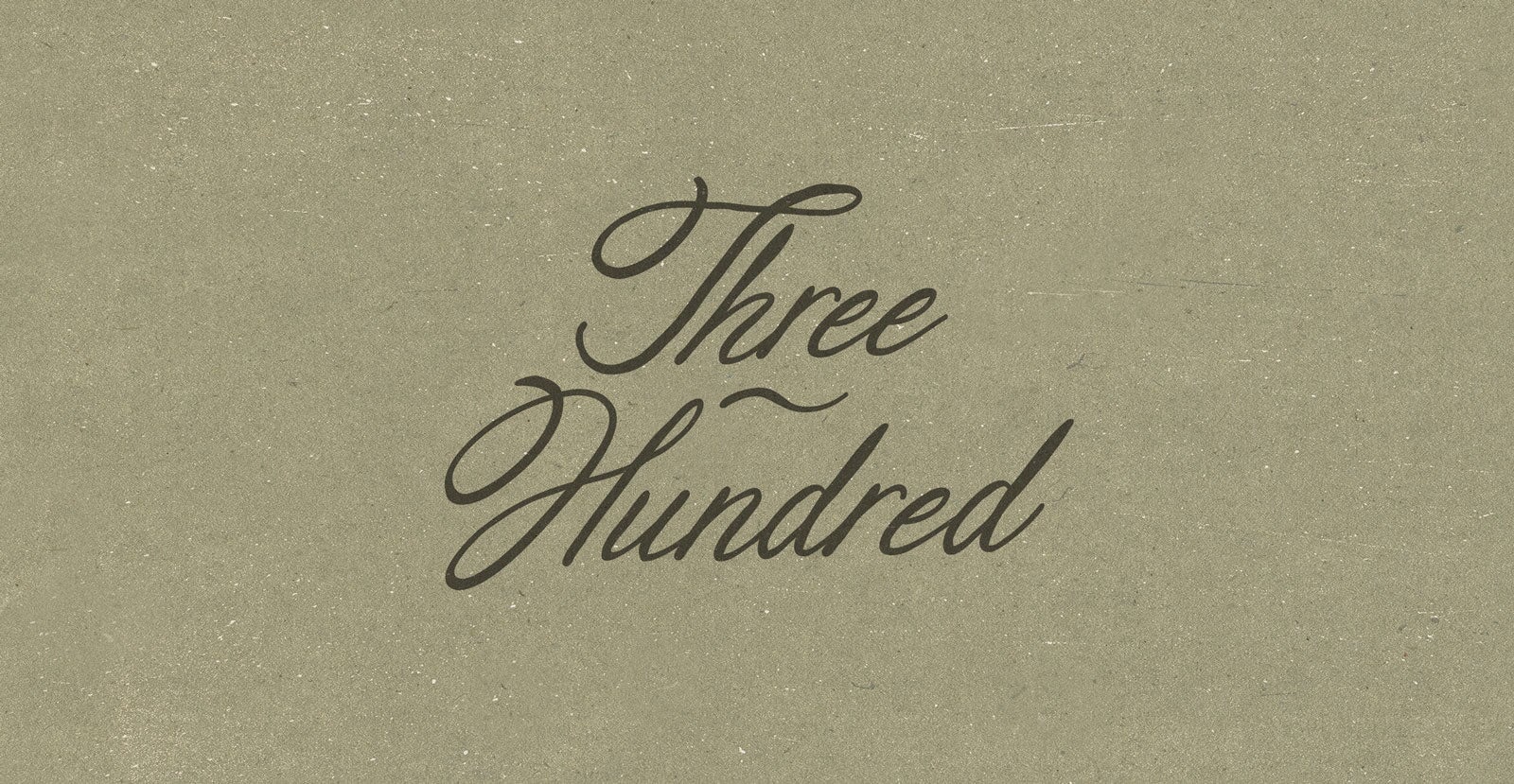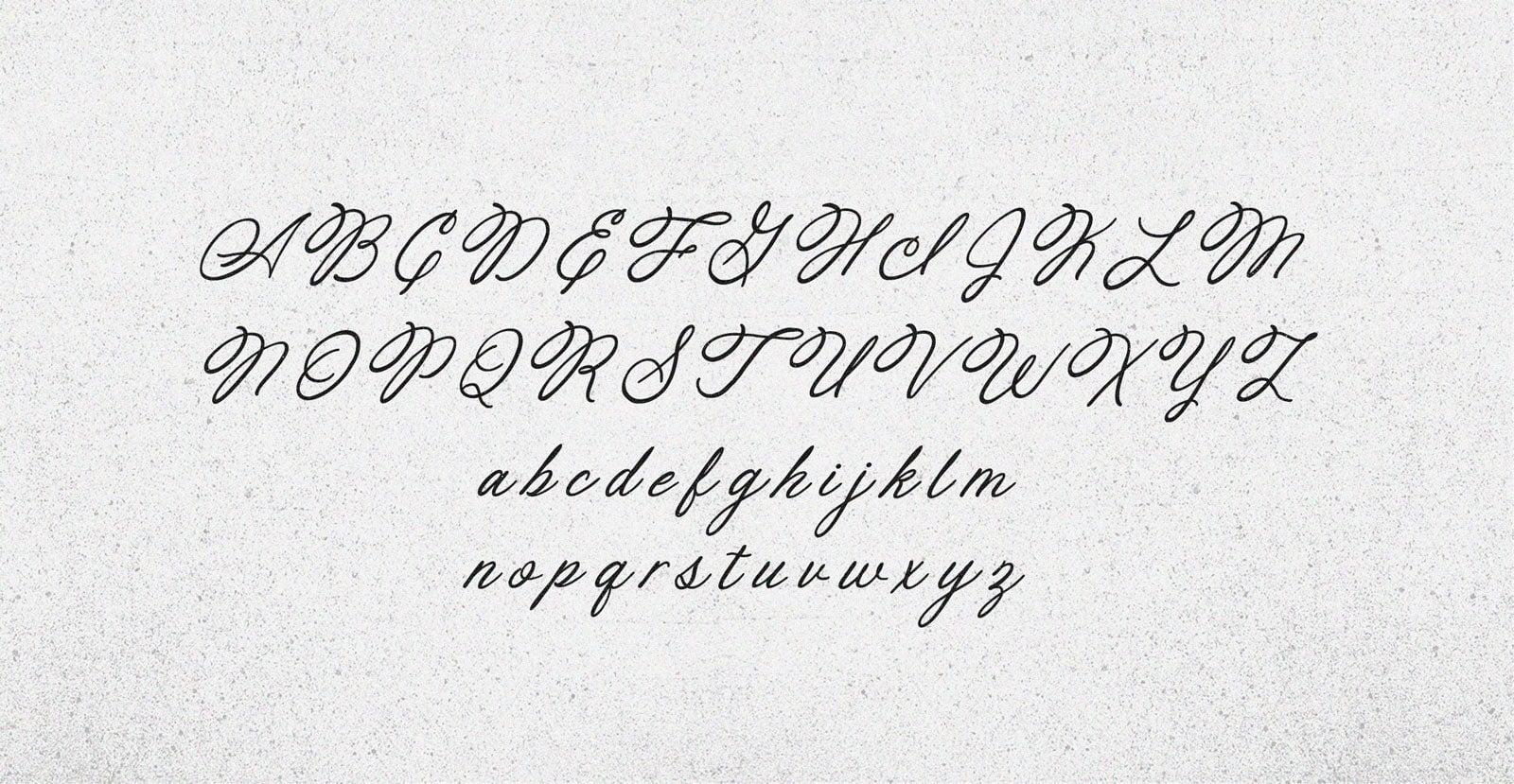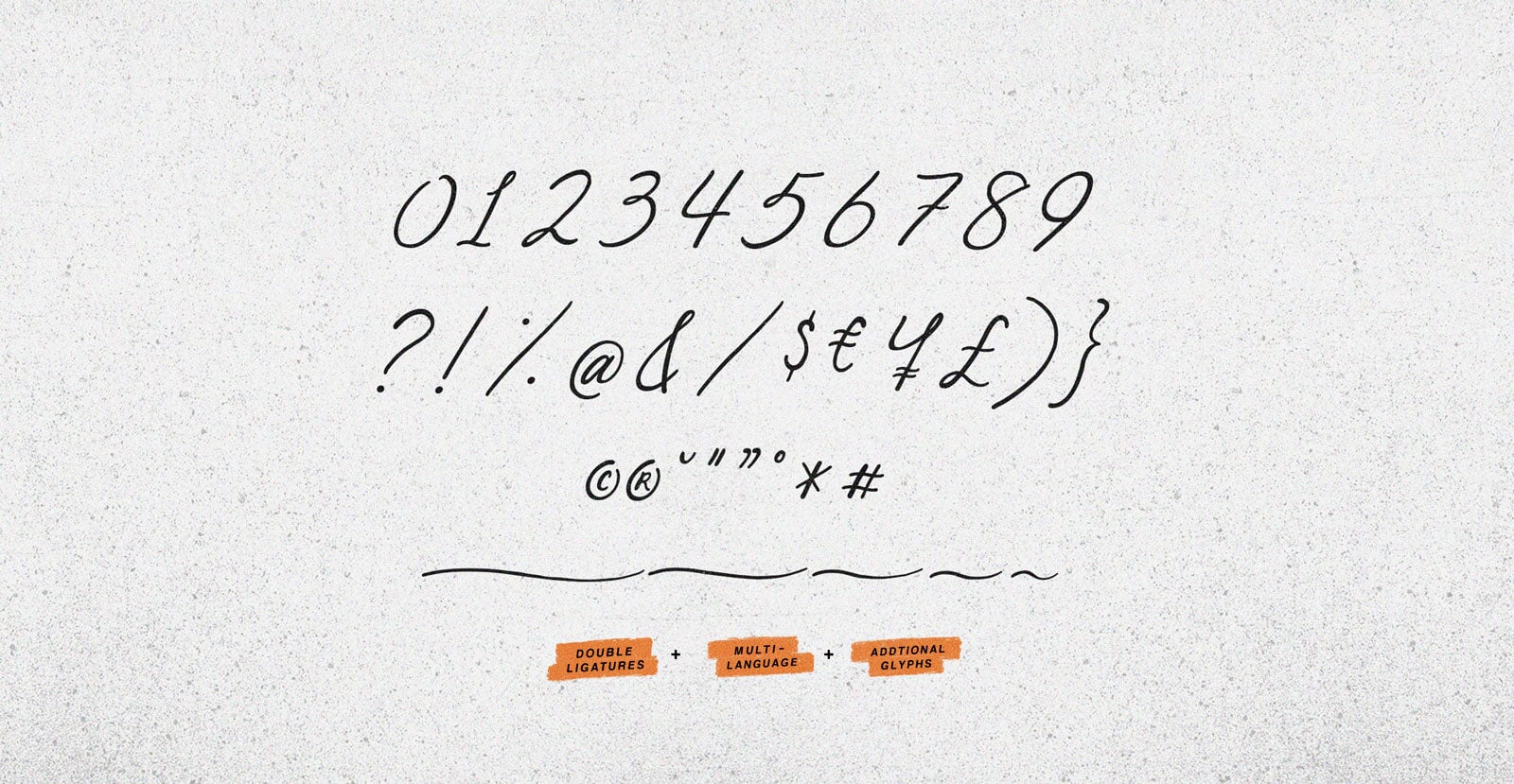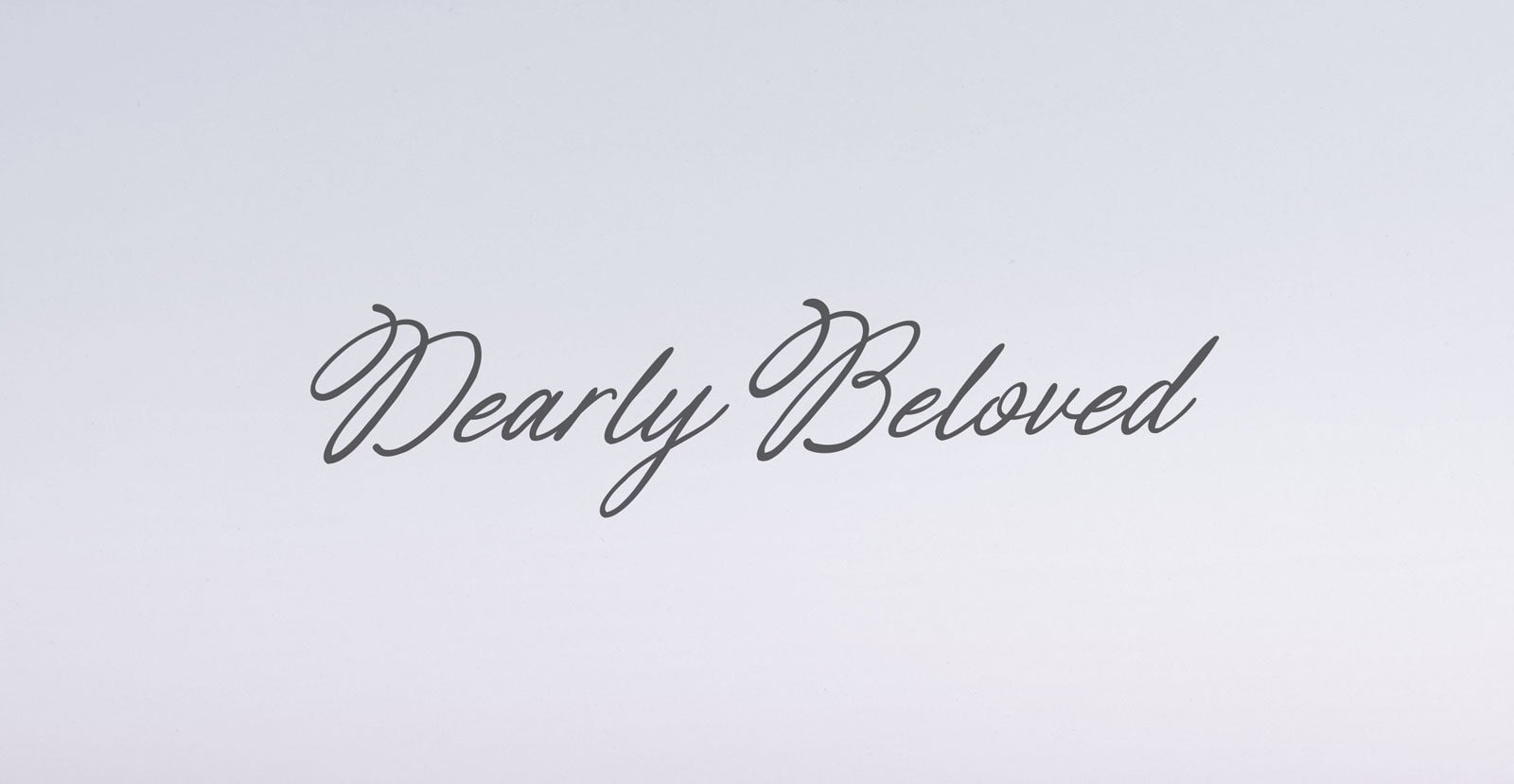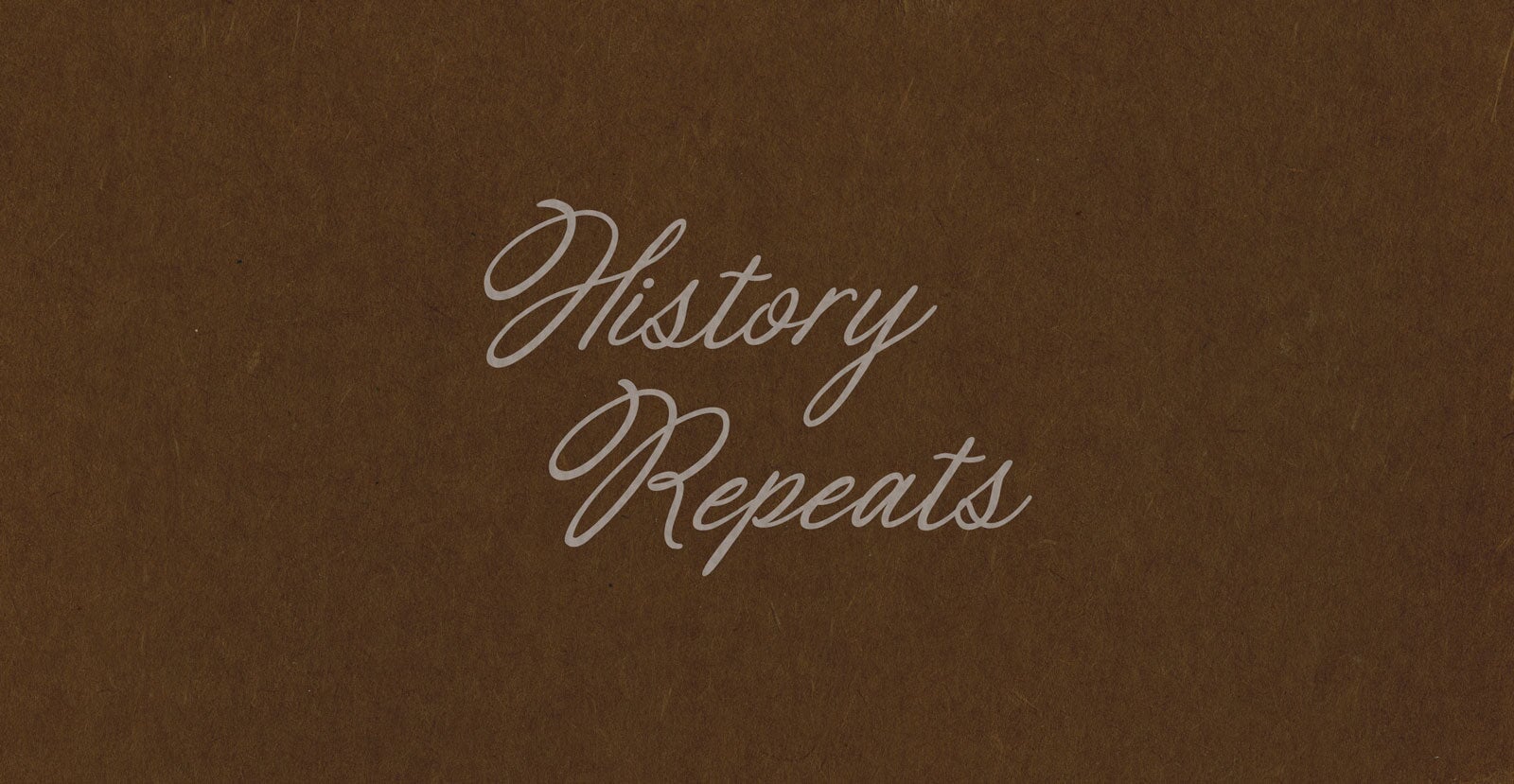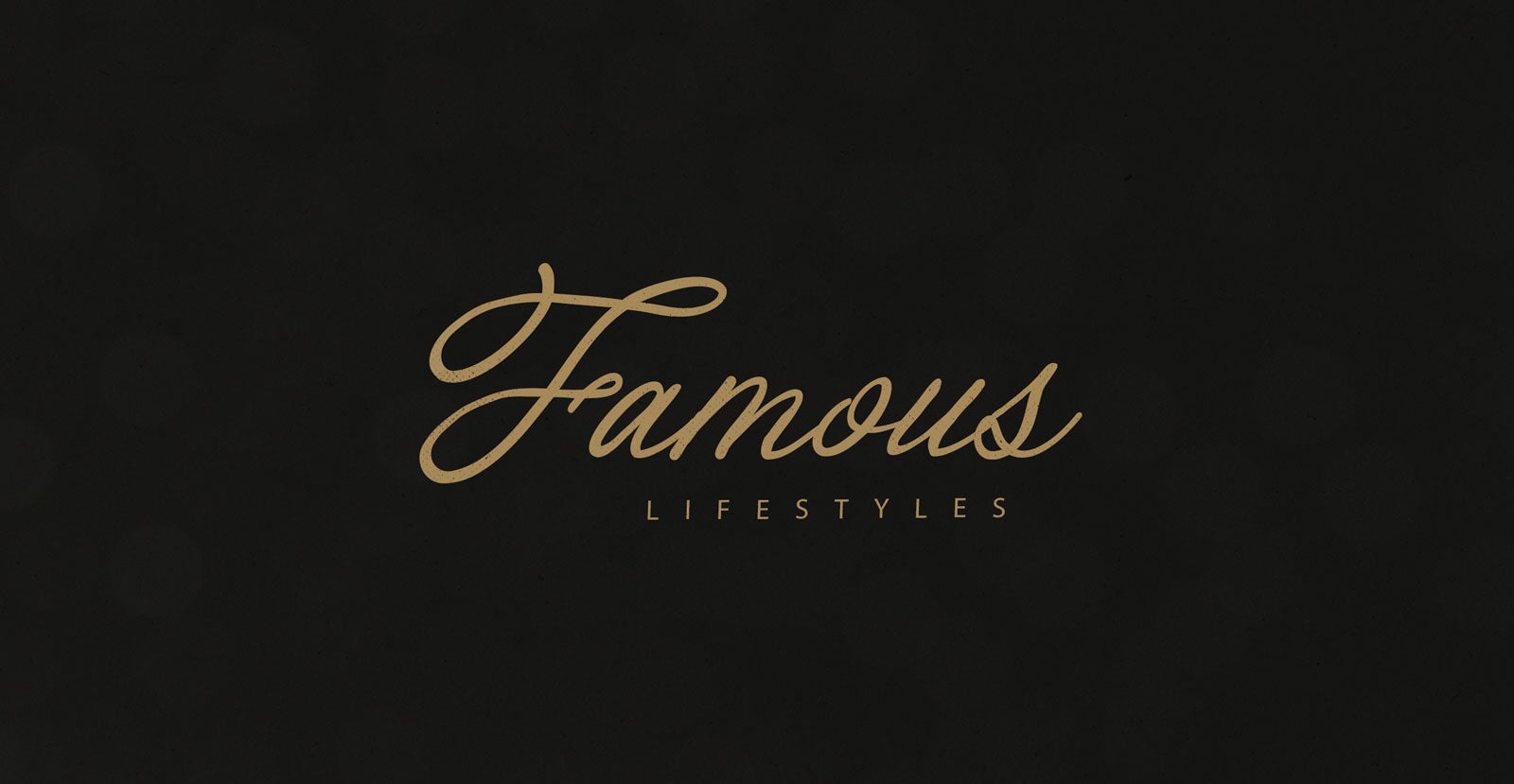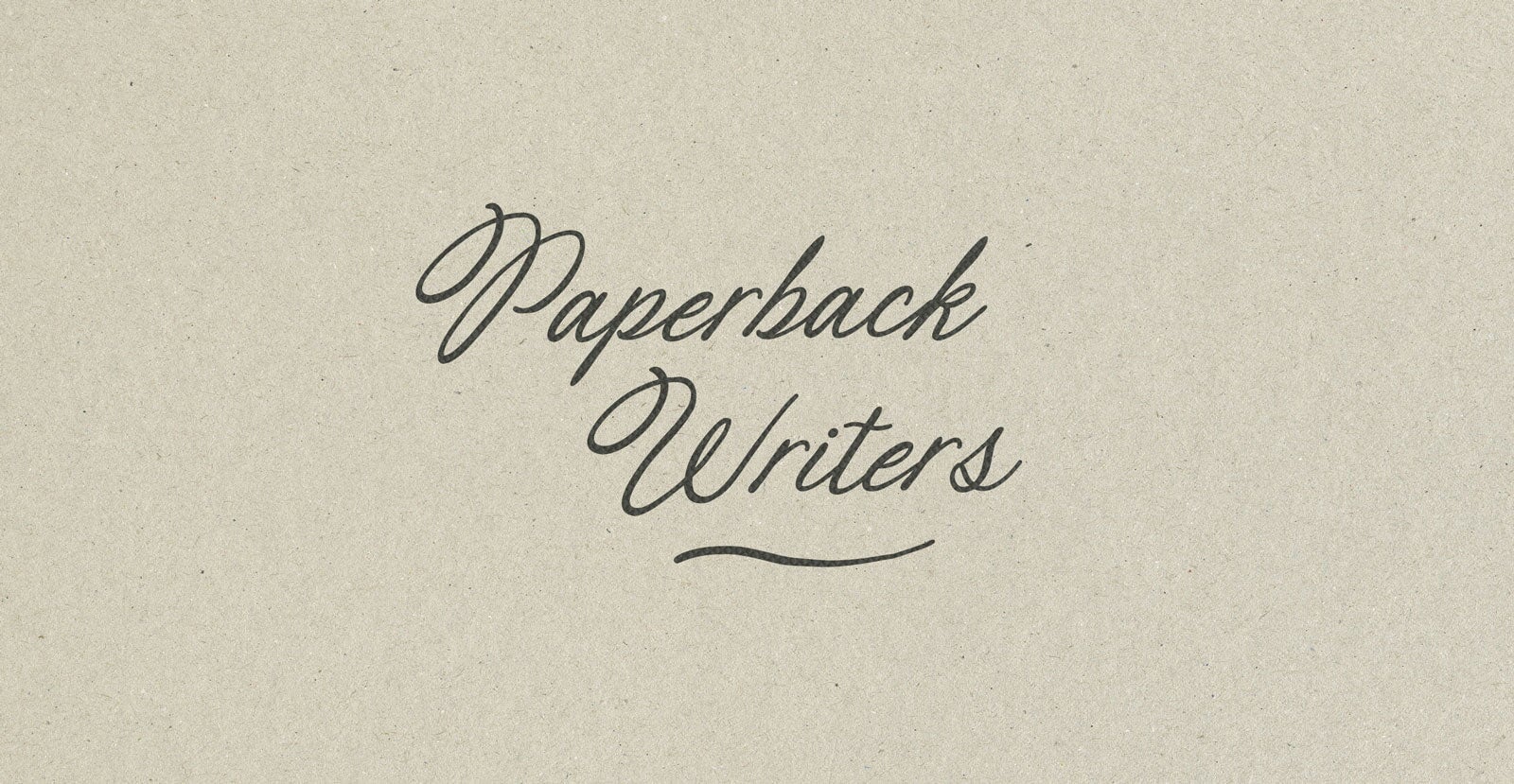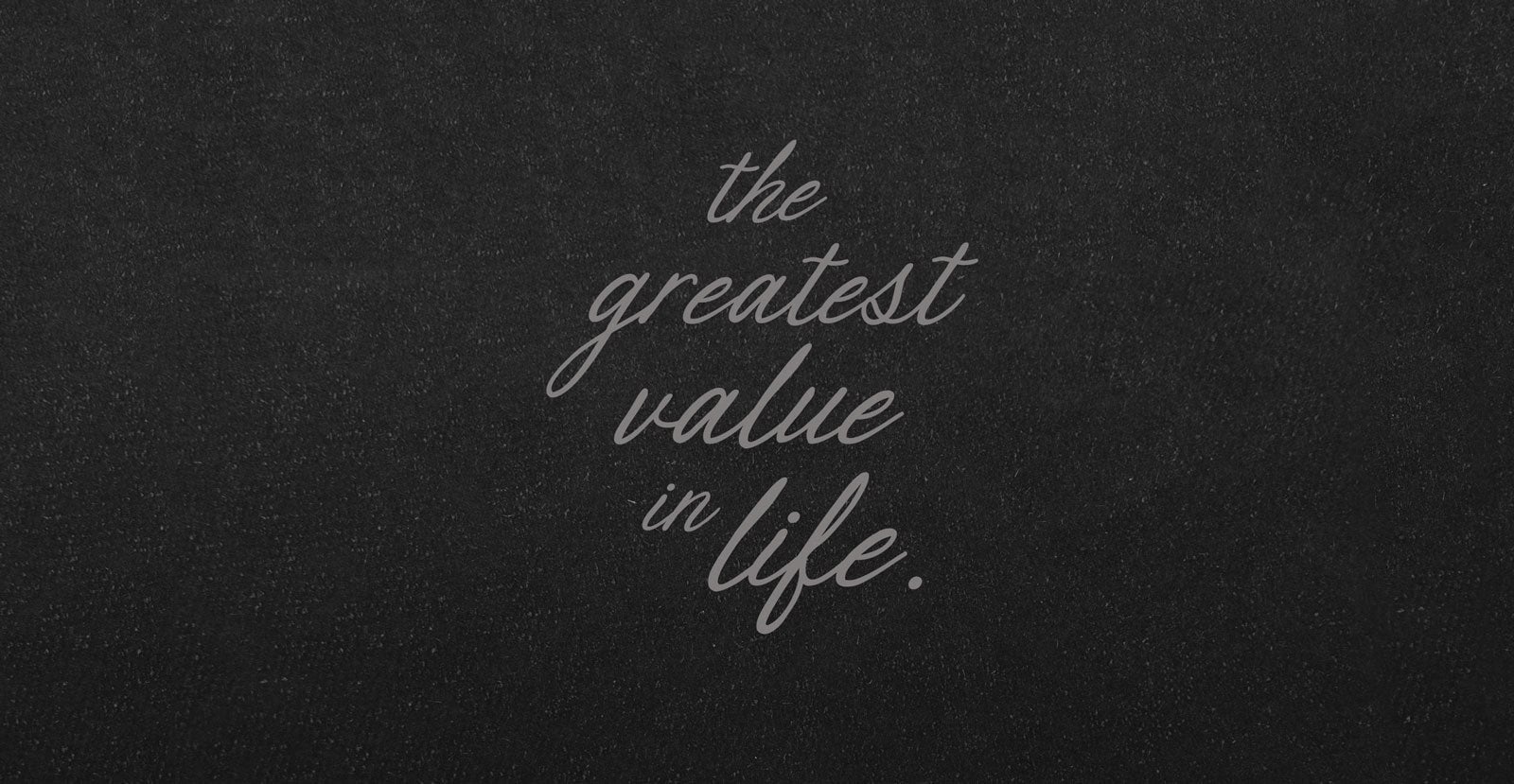
Three Hundred
Three Hundred stands with bold restraint. Measured, and carved from resolve. It speaks in fewer words but leaves a lasting mark. A quiet force shaped by intention, not excess.